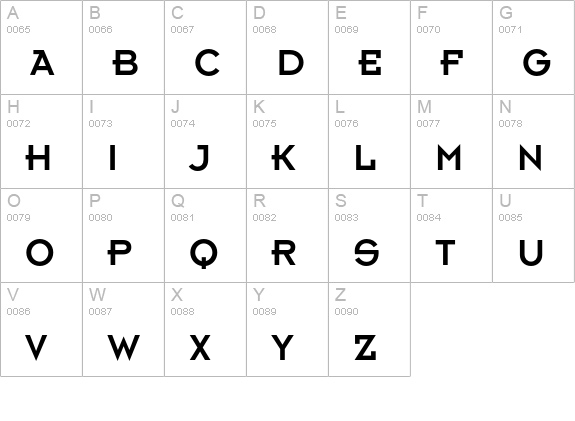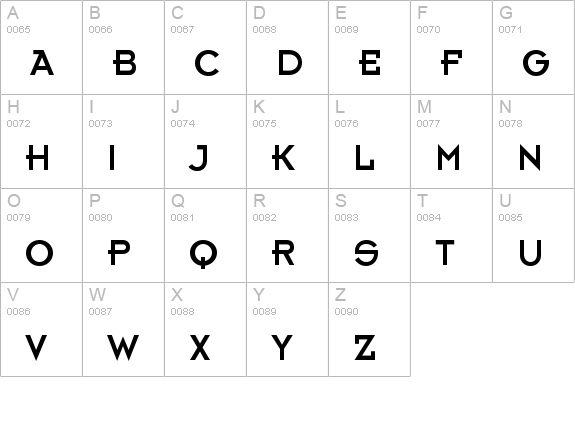
Insignia A Font Details
Insignia A is a stunning and versatile font that captures the essence of elegance and sophistication. With its clean lines and contemporary design, it effortlessly combines modernity with timeless appeal. This font is perfect for a wide range of creative projects, from branding and logos to invitations and headlines. One of the most remarkable features of Insignia A is its ability to convey a sense of professionalism and refinement. Its carefully crafted letterforms exude confidence and poise, making it an ideal choice for corporate identities and business presentations. Furthermore, Insignia A is not only visually appealing, but also incredibly easy to read. Its balanced proportions and well-defined strokes ensure optimal legibility, whether in print or on screen. This font will captivate your audience and leave a lasting impression. And the best part? Insignia A is available for free download at FontsMarket.com. You can effortlessly access this remarkable font and elevate your designs without any cost. Experience the beauty and versatility of Insignia A and let your creativity flourish.